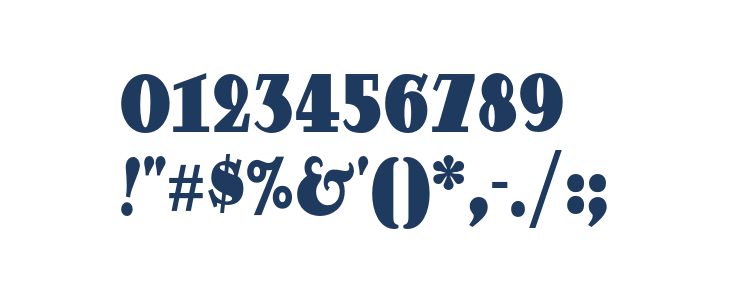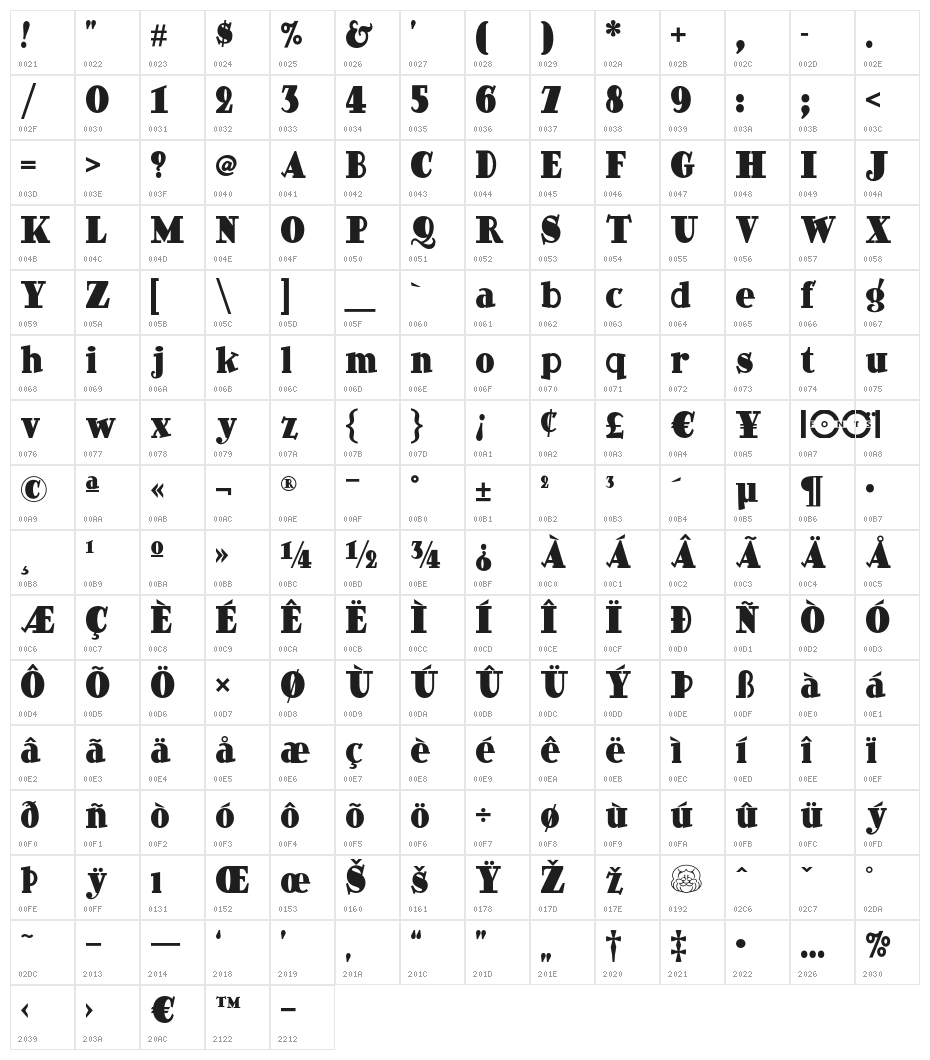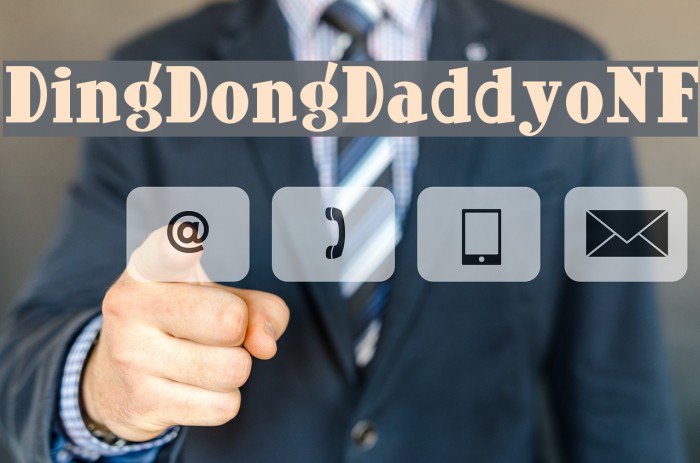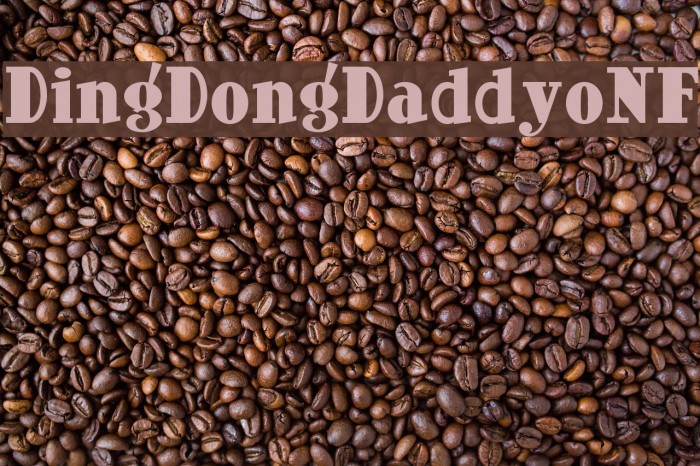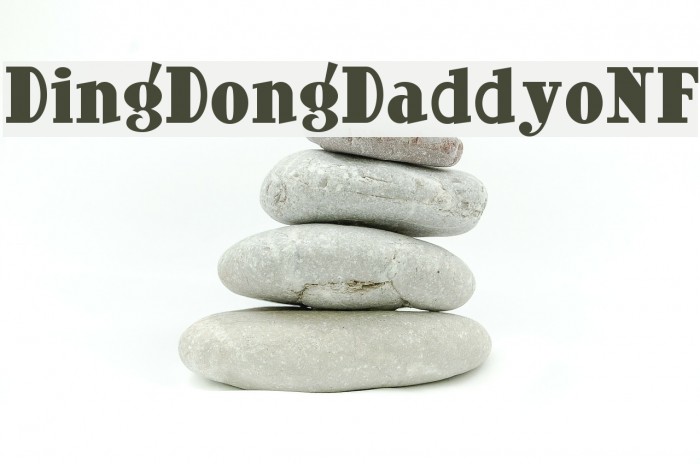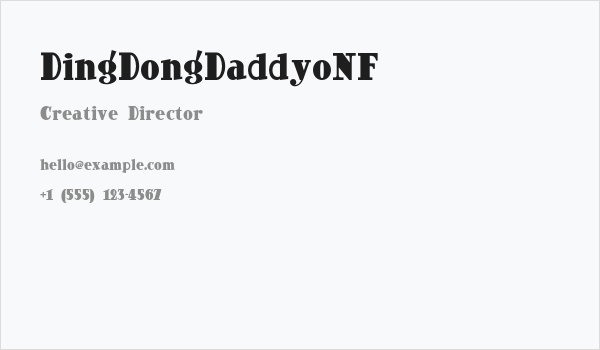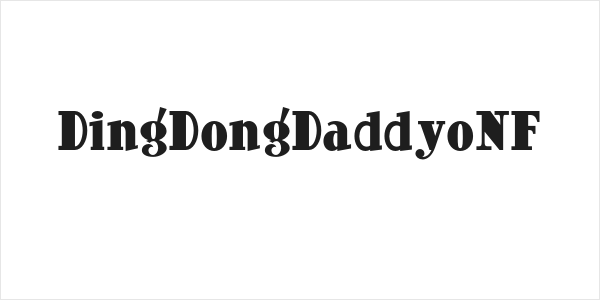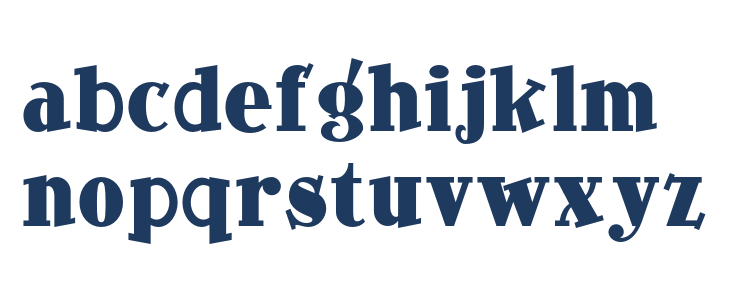
DingDongDaddyoNF Font
This font exudes a bold and playful character, with a strong presence that commands attention. The uppercase letters feature unique embellishments, such as swashes and curls, adding a whimsical touch to the overall design. The lowercase letters maintain a consistent style, complementing the uppercase with their rounded forms and slight variations in stroke width. Numbers are robust and easily readable, while special characters carry the same decorative flair. The font's thick strokes and high contrast make it ideal for impactful designs.
Overall StyleVintage
Proposed ProjectsPerfect for retro-themed posters, playful branding, eye-catching headlines, and creative packaging designs.